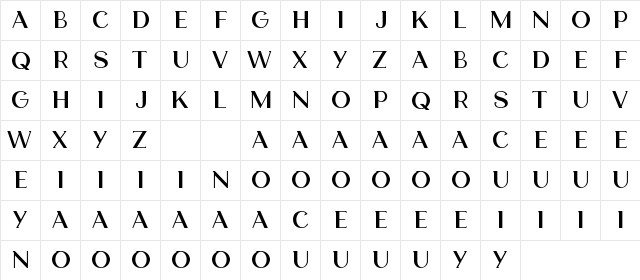
Cosmith Chic Regular
| Foundry | Beautypes Studio |
| Designer | Yansuari Shakti |
Design Context for Cosmith Chic Typeface
Cosmith Chic offers clean, dependable letterforms without strong stylistic allegiance, making it a practical choice for designers who need flexibility.